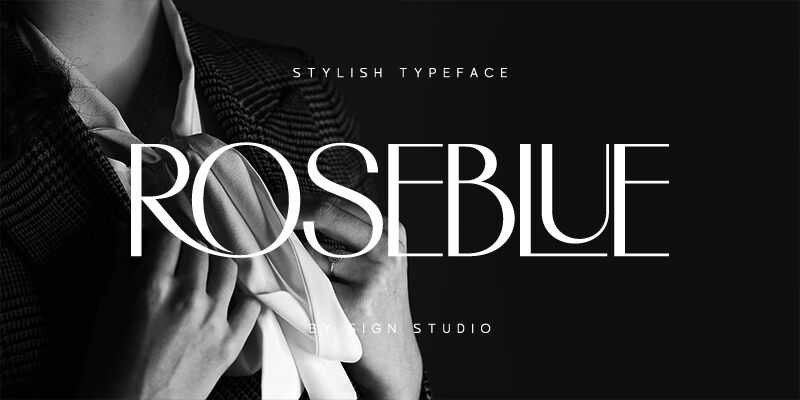
Roseblue, designed by Sign Studio, is a captivating sans serif font with a touch of elegance. Its semi-light weight adds a delicate charm to any project. Perfect for modern and minimalist designs, Roseblue brings sophistication to websites, logo branding, and editorial layouts. With its clean lines and versatile nature, this typeface seamlessly balances professionalism and creativity. Whether crafting a trendy fashion blog or designing sleek corporate materials, Roseblue is the ideal choice for those seeking an effortlessly polished aesthetic. Let this graceful font elevate your projects to new heights.
Roseblue Font Family by Sign Studio